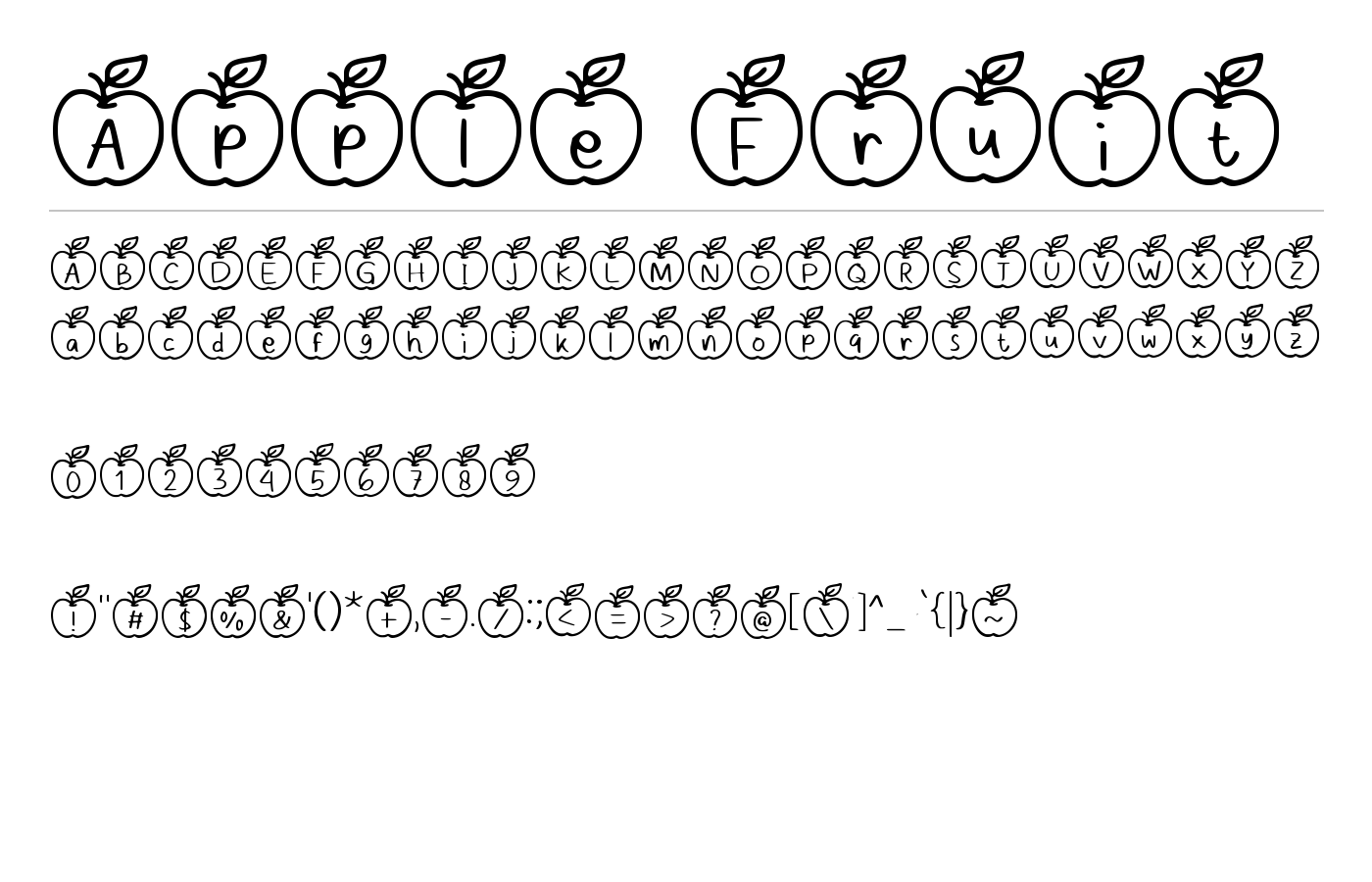
Apple Fruit Font is a playful and whimsical handwritten typeface where each character is creatively enclosed in a cute apple-shaped outline with a small leaf on top. Its light, airy strokes and casual letterforms make it perfect for fun, child-friendly designs, educational materials, or fresh branding that wants to convey a sense of joy and approachability. This font works especially well in logos, invitations, or any creative project that benefits from a charming and unique touch.
Apple Fruit Font
About Apple Fruit Font
| Font family | Apple Fruit Font |
| Designer | Nur Aisyah Amalia |